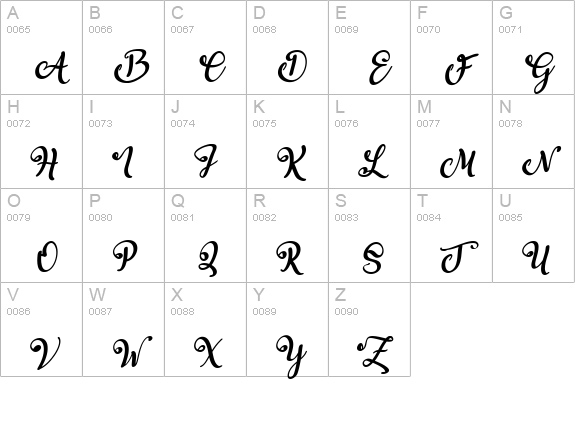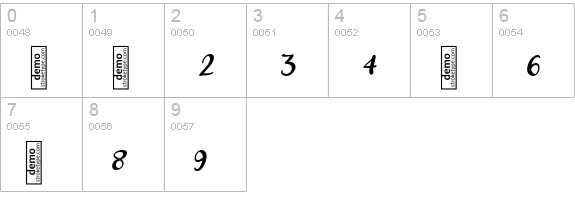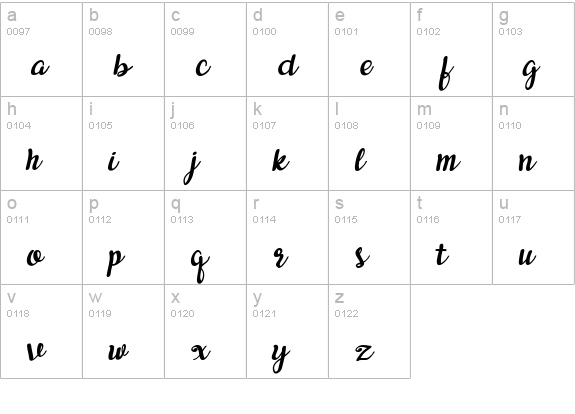
Aikaterine is a free for personal use font in the Script > Calligraphy category, designed by stroketype. It has been downloaded 211 times and is available for Windows, Mac and Linux.
Aikaterine font is a stunning and versatile typeface that brings a touch of elegance to any design project. With its sleek lines and graceful curves, Aikaterine font exudes sophistication and charm. Whether you're creating a wedding invitation, branding materials, or a logo, this font is sure to make a statement.